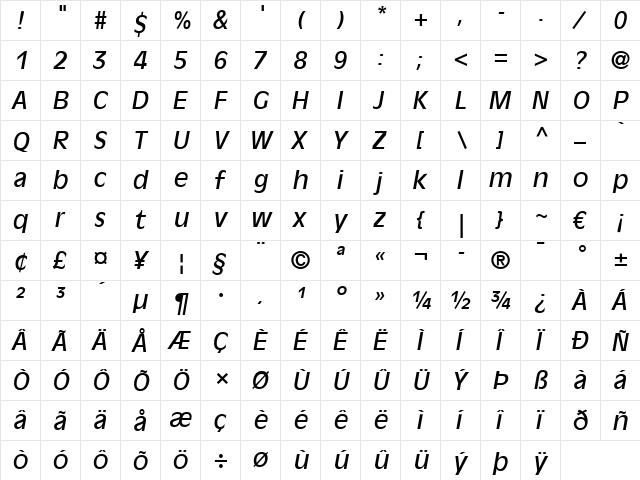
AntiqueOlive LT Roman Italic Font Preview
Design Context for AntiqueOlive LT Roman Typeface
AntiqueOlive LT Roman wears its vintage influences proudly, with letterforms that recall mid-century signage, classic packaging, and nostalgia-driven design. The dynamic lean of this cut emphasises speed and emphasis in any layout. Its slender proportions lend an understated elegance to any composition.
Ideal for diner signage, record shop branding, 70s/80s-themed projects, and heritage product labels.
Font Pairing: Combine AntiqueOlive LT Roman with a simple slab or neutral sans — period-accurate companions reinforce the vintage feel without competing for attention.
Pro Tip: Lean into AntiqueOlive LT Roman's period character by pairing it with aged paper textures, muted colour palettes, and vintage illustration styles.